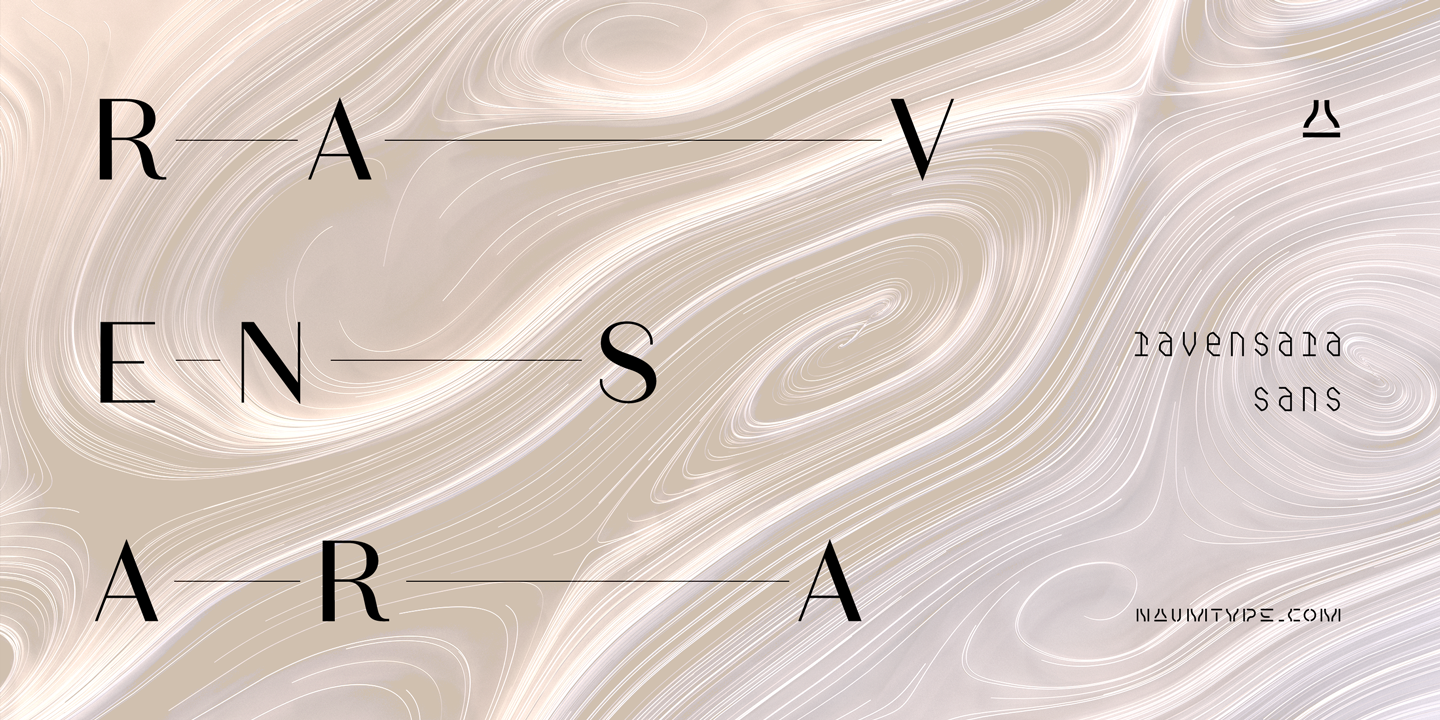
Ravensara Sans Font is perfect for natural wellness branding, organic skincare packaging, aromatherapy product labels, essential oil company designs, holistic health center signage, botanical spa materials, natural healing practice logos, herbal medicine packaging, eco-friendly beauty brands, and therapeutic wellness communications that require pure healing energy and natural sophistication.
This font is exciting because it captures the pure essence and healing properties of the ravensara tree with clean, therapeutic letterforms that embody the natural purity and restorative power essential to wellness and healing applications. Ravensara Sans Font features organic curves and balanced proportions that reflect the harmonious nature of botanical healing while maintaining the clarity and professionalism required for modern wellness brands.
Ravensara Sans Font family includes Regular, Bold, Light, Medium, Healing, Organic, Pure, and Therapeutic versions, plus natural symbols, botanical ornaments, wellness icons, and healing elements that enhance the authentic wellness aesthetic and provide comprehensive design solutions for health and natural therapy applications.
For natural wellness and therapeutic design projects, Ravensara Sans Font Free Download delivers exceptional healing character and organic appeal. The font's pure letterforms and therapeutic spirit make it perfect for wellness centers, natural health practitioners, and organic beauty brands seeking to communicate healing, purity, and natural therapeutic benefits. Its clean design appeals to health-conscious audiences who value natural healing and organic wellness solutions. The character set includes wellness symbols and natural healing markers that reflect therapeutic industry standards. Professional designers appreciate its ability to convey both natural authenticity and professional credibility while maintaining excellent readability across wellness marketing, natural health communications, and therapeutic branding materials, making it essential for brands that want to project the pure healing energy and natural therapeutic power that defines authentic wellness and communicates the restorative benefits of natural healing practices.